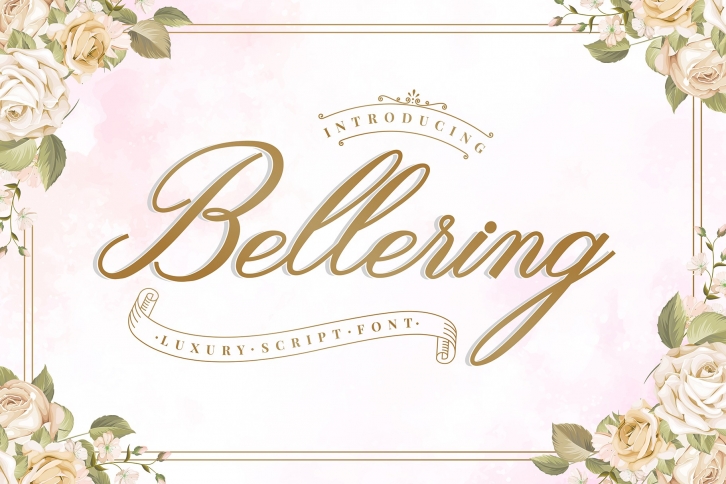
Bellering is a gorgeous font that was realeased on April 3, 2020. The font can be used in many style contexts and design environments. Perfect for invitations, magazines, websites, logos, and more! It was designed by Balya 99 and the file size is 2.6 MB. Thanks for checking out this font!